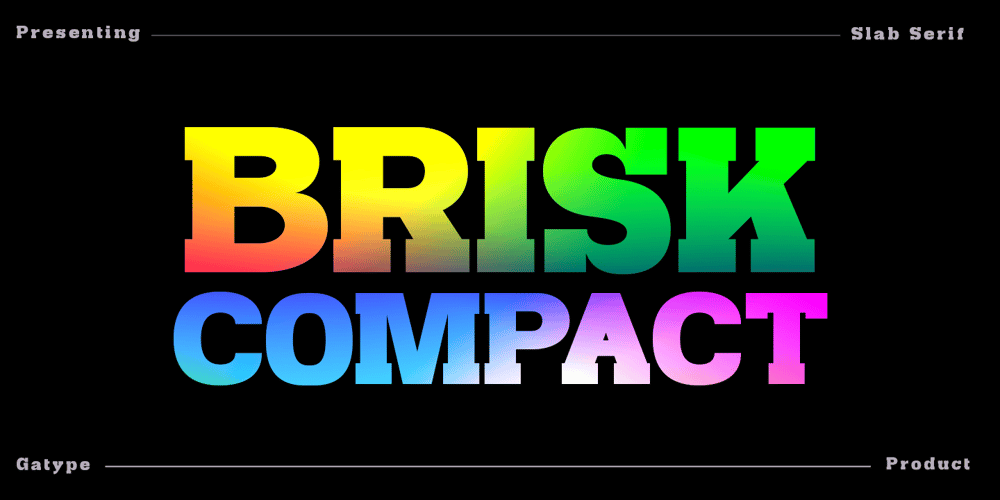
Brisk Compact
Brisk Compact font
Brisk Compact Font Family was designed by Khai Dir and published by Gatype. Brisk Compact contains 1 styles and family package options. Brisk Compact is a slab serif font with bold, clean, large shapes. The typeface as a whole is strong in conveying order and harmony between letters. Best used as Instagram, poster, web design, magazine, logo or product.Include files:Brisk Compact. OTBrisk Compact. TT-Letters, Numbers, Punctuation, Accent Ligatures, , AlternativesIf you have any questions, feel free to message meThank You